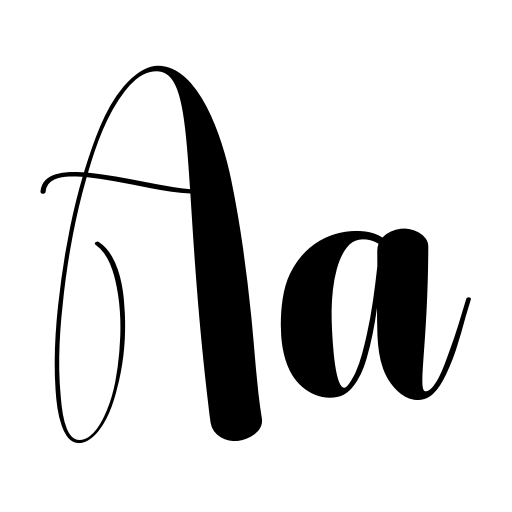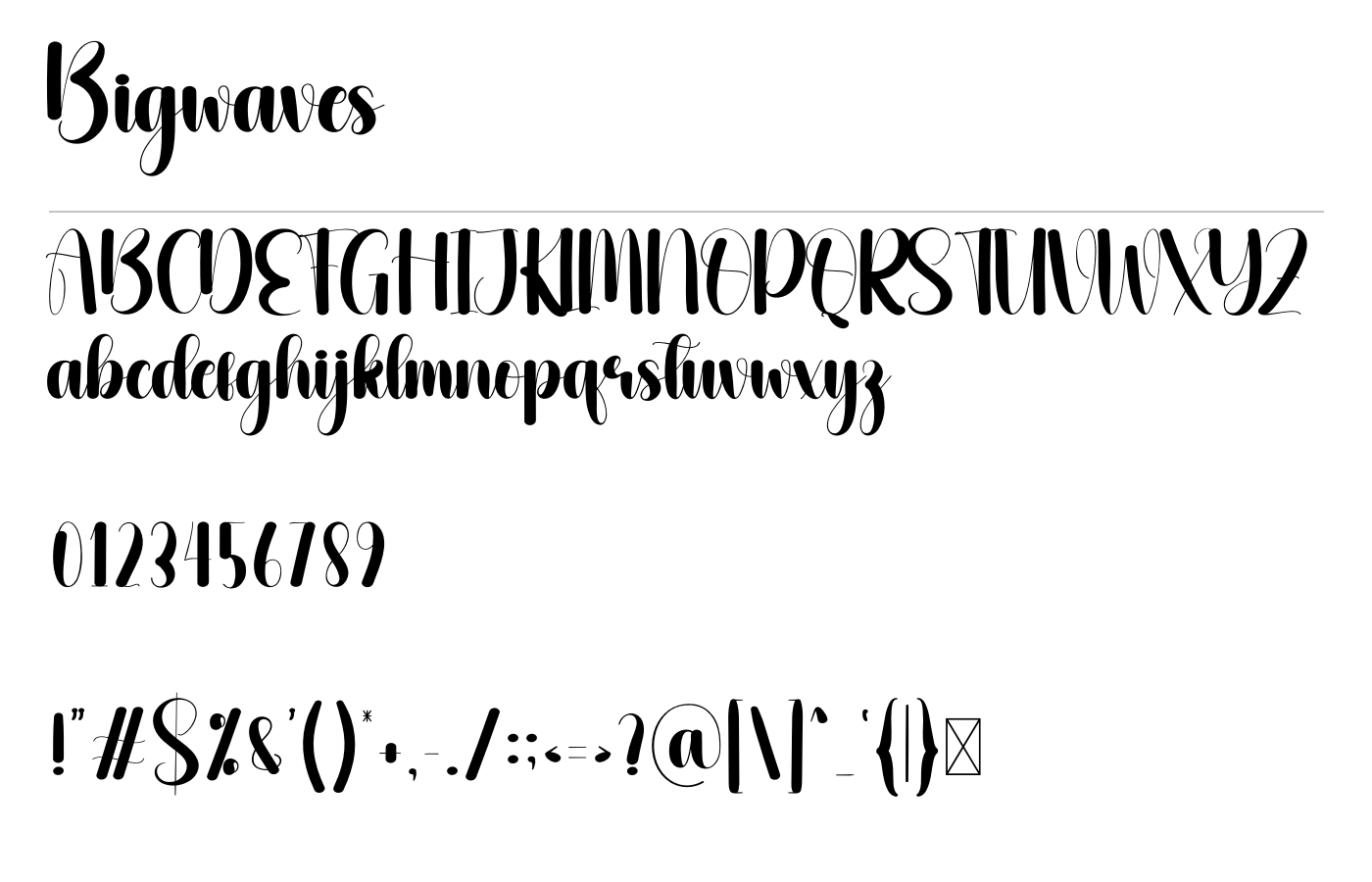
Bigwaves is a playful and elegant script font that features bold, rounded letterforms combined with delicate, flowing swashes. Its strong contrast between thick and thin strokes creates a dynamic, energetic feel, making it perfect for stylish branding, invitations, and eye-catching headlines. This font works well where a lively yet sophisticated touch is needed to convey creativity and charm.
Bigwaves Font
About Bigwaves Font